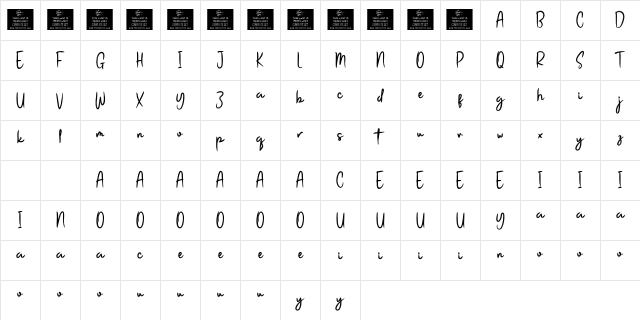
Srangat Personal Use Free Font
Srangat Personal Use
Design Context for Srangat
Srangat is a composed and adaptable typeface that performs quietly and consistently across a wide range of design contexts.